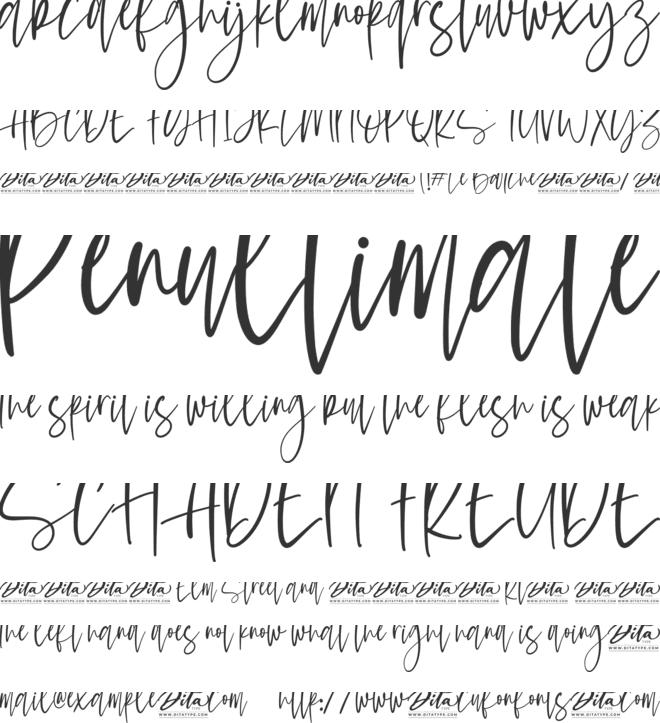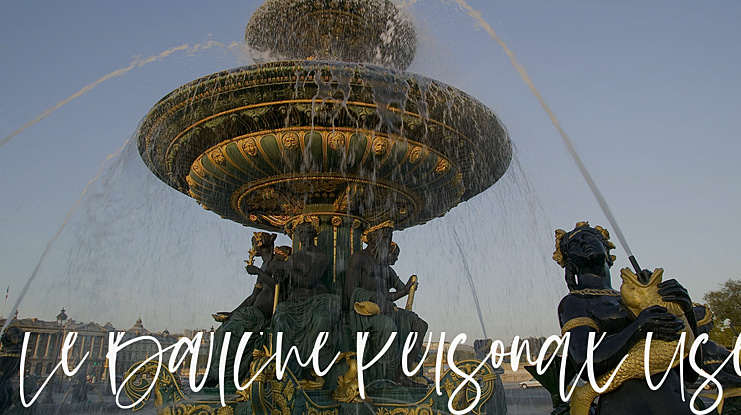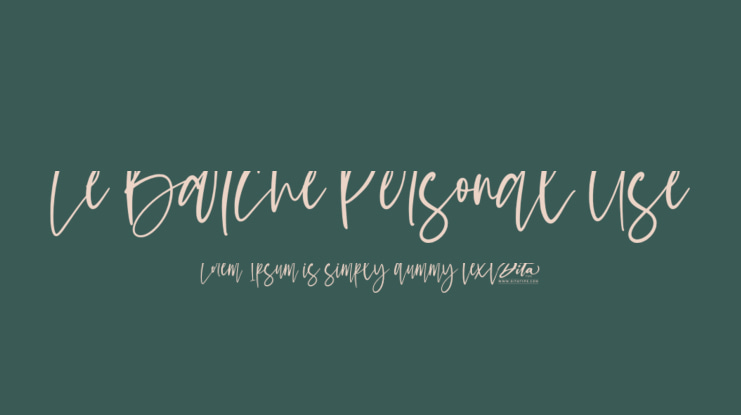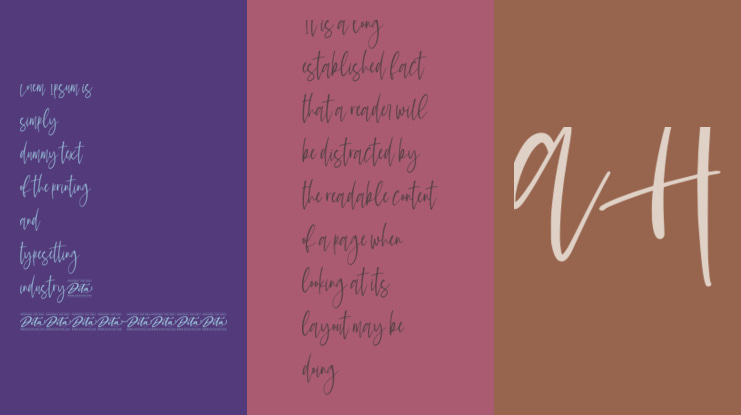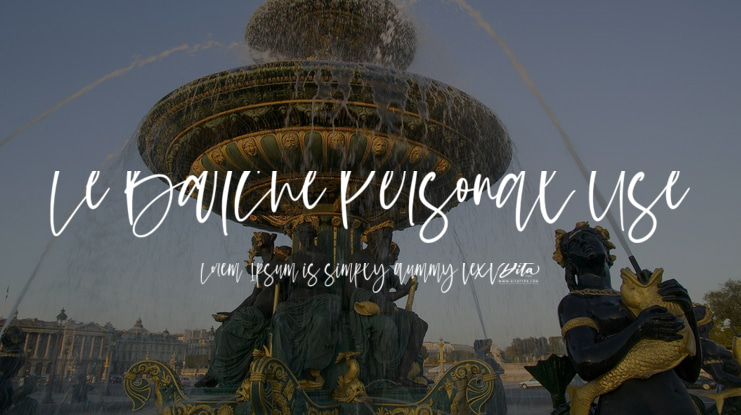
Fahrul Arjianto & Donis Miftahudin
Le Barche is a modern handwritten font. With a classy and natural handwritten style, it brings a classy and chic typeface. Le Barche is best used for weddings, branding, logotype, and quotes.